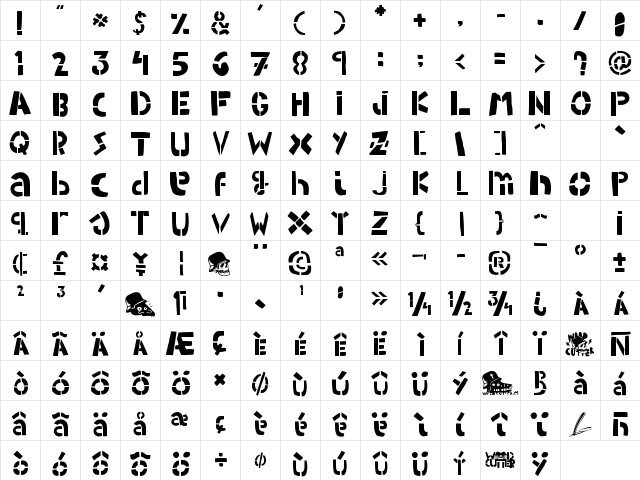
Complete WOODCUTTER ARMY (Stencil) Regular glyph index. Displaying only characters natively supported by WOODCUTTER ARMY (Stencil) Regular font.
WOODCUTTER ARMY (Stencil) has the no-nonsense character of military stencilling and tactical signage, projecting authority and directness.
A strong choice for security brands, outdoor gear, and high-stakes visual communication.
Pro Tip: Try WOODCUTTER ARMY (Stencil) in all-caps for the most authentic military signage feel. It pairs well with stark, minimal layouts and muted colour palettes.